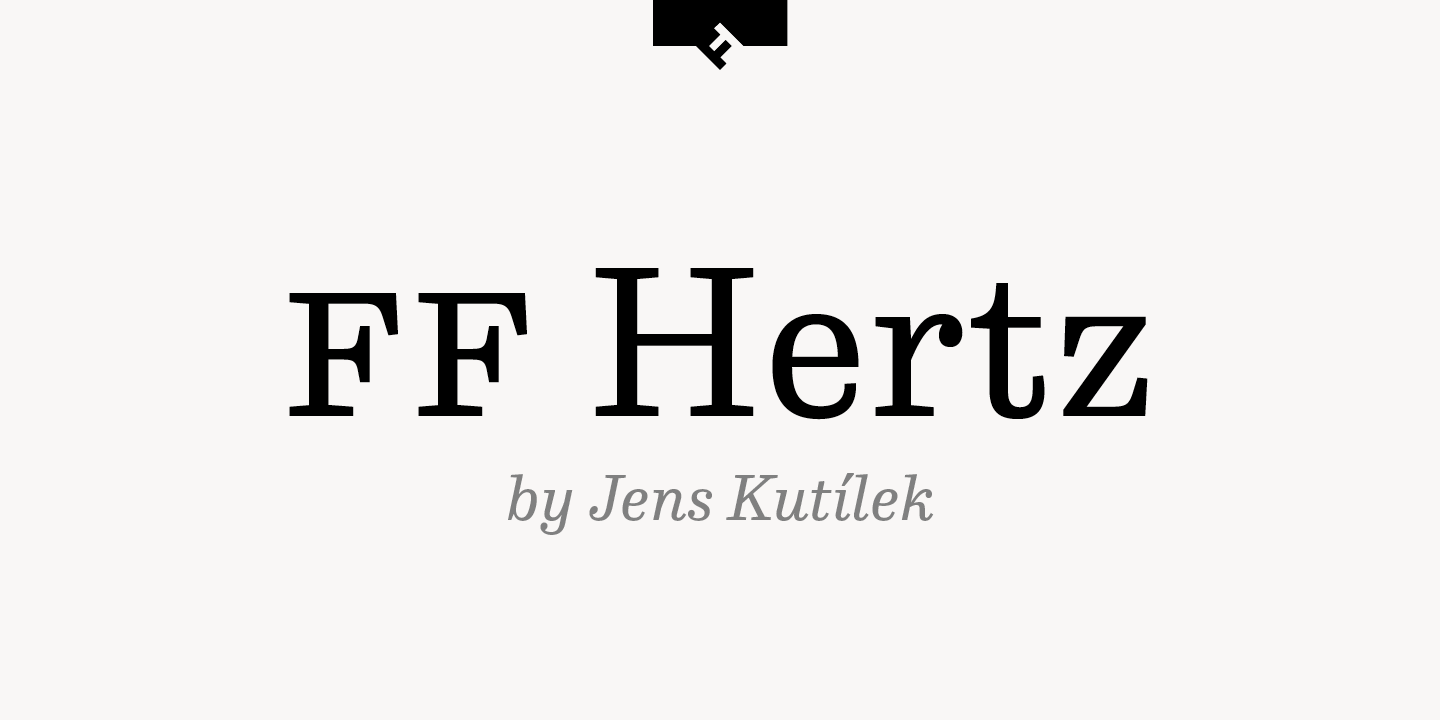
FF Hertz Font is perfect for audio equipment branding, music production interfaces, radio station identities, sound engineering documentation, electronic music album covers, concert venue signage, and acoustic technology marketing that requires rhythmic, frequency-inspired typography with sonic appeal.
This font is exciting because it captures the vibrational essence and harmonic precision of sound waves, featuring dynamic letterforms that convey frequency, rhythm, and the invisible energy of audio waves while maintaining crisp readability for technical and creative applications.
The FF Hertz Font family includes light, regular, medium, and bold weights with frequency variants, offering uppercase and lowercase letters, audio numerals, sonic symbols, rhythmic punctuation marks, and harmonic elements designed for sound-based applications.
Audio design professionals consistently choose FF Hertz Font Free Download for projects requiring authentic sonic character and acoustic technology sophistication. This dynamic typeface transforms audio communications into compelling statements of sound mastery that immediately resonate with musicians, audio engineers, and music enthusiasts seeking genuine acoustic expertise and professional sound quality. The font's vibrational character makes it exceptionally effective for recording studios, audio equipment manufacturers, and music venues where sonic precision and acoustic excellence must be communicated through every visual element. Its frequency-inspired design bridges scientific audio principles with creative music culture, making it invaluable for brands celebrating sound innovation and acoustic artistry. The rhythmically crafted letterforms maintain their sonic appeal across mixing consoles and concert programs, ensuring consistent brand recognition and audio authority. Whether you're developing recording studio identities, creating music festival branding, or designing audio equipment interfaces, this typeface provides the harmonic voice and visual rhythm that distinguishes genuine audio expertise from commercial music marketing, establishing immediate credibility among audio professionals who appreciate sound engineering precision and expect the highest standards of acoustic sophistication in their music production environments and sonic technology systems.